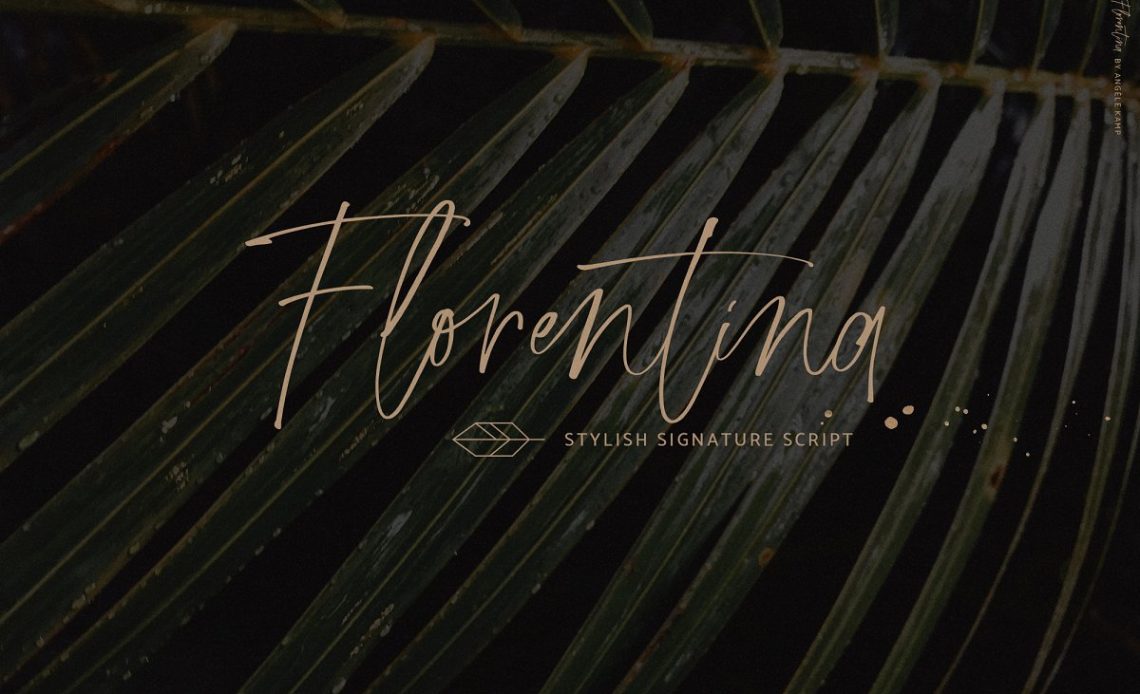
Looking for the perfect font for your next design project? Look no further than Florentina, the stylish script font created by Angele Kamp. This handwriting font is the perfect choice for anyone in need of a font that will instantly add flair to their designs.
Florentina includes 48 ligature letter combos, giving you that gorgeous hand-lettered look that's so popular right now. In addition, the font includes 27 alternate characters, so you can switch it up whenever you want. But that's not all - the font also comes with a collection of 26 geometric symbols that can be used to create logos and branding.
When you install Florentina, you'll be able to start designing right away. And because it's such a versatile font, you'll find that it works well for a wide range of design projects. Whether you're working on a website, a brochure, or a social media graphic, Florentina will help you create a look that's both unique and eye-catching.
One of the best things about Florentina is that it's the best font for Latin script. This means that if you're working with Latin-based languages, you won't find a better font for your needs. And because it's such a high-quality font, you can be sure that your designs will look professional and polished.